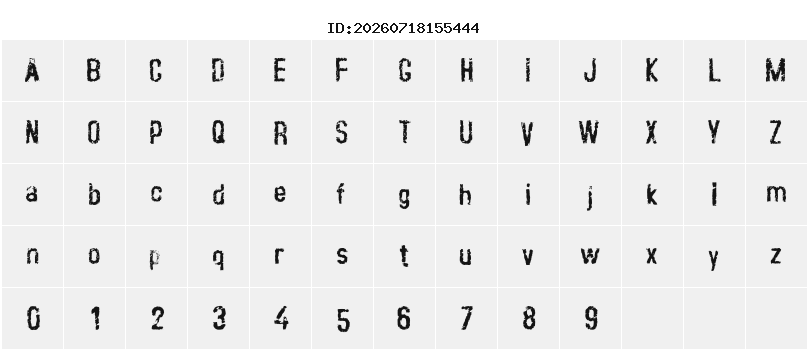
crust_clean Preview
• Font Name: crust_clean
• Font Style: crust_clean
• Full Font Name: crust_clean
• PostScript Name: crust_clean
• Manufacturer: thibault dietlin
About crust_clean.ttf
crust_clean.ttf is a modern, elegant sans-serif font designed for ultimate readability and visual harmony. Perfect for branding, headlines, web design, and print materials.